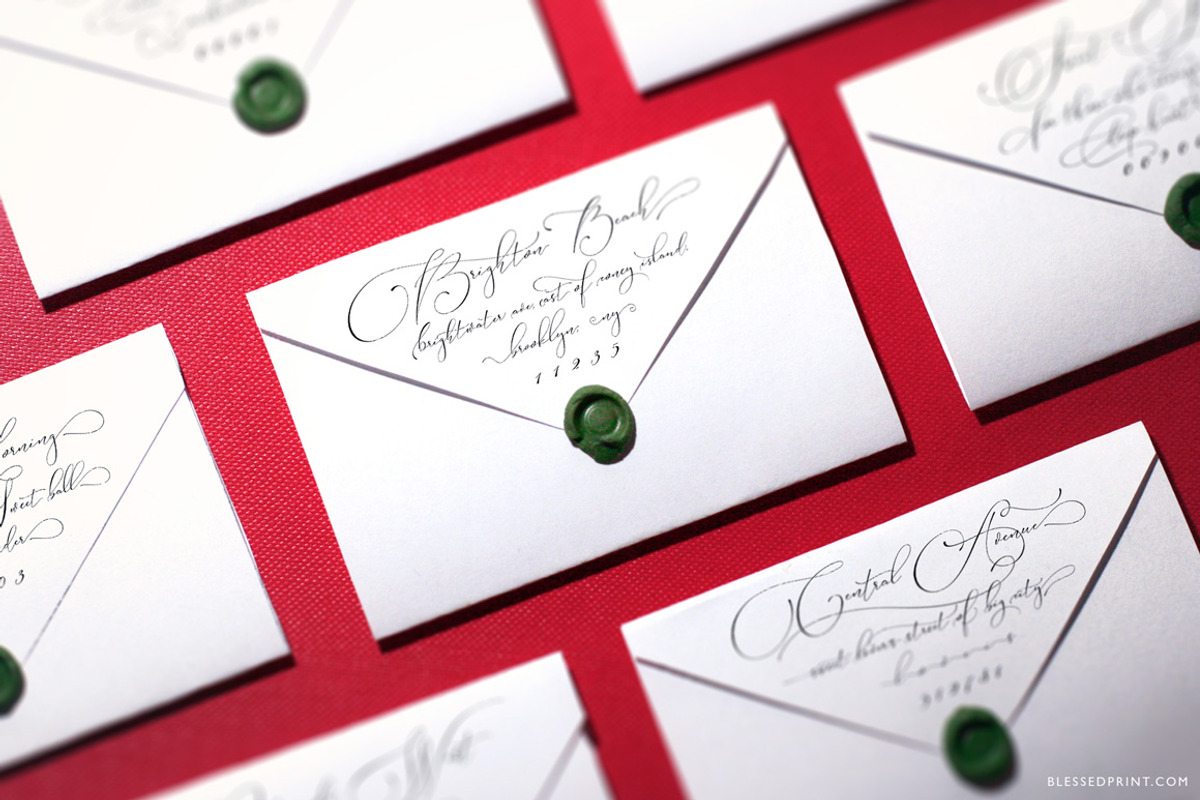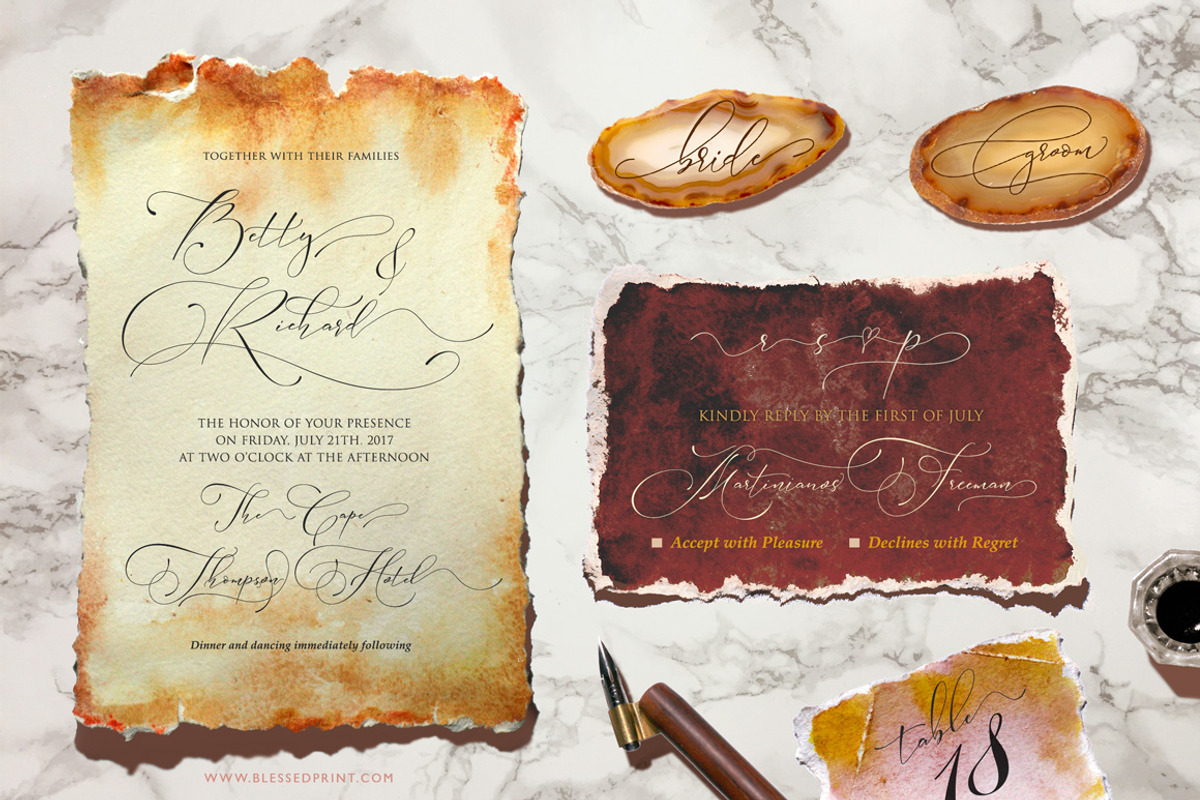
Absolutely Adorable Sophia
Ever fancied yourself as a modern calligrapher? There you go… Greet the absolutely adorable new script “Sophia”! The latest creation from BlessedPrint, the author of “Mozart” and “BetterFly".
Now you have a unique opportunity to master modern calligraphy with just a single font. Forget about the Glyphs panel, simply add an appropriate number after a letter and get your elegant swash in seconds.
Absolutely easy… As easy as one-two-three…
To access alternate glyphs and swashes just type the number after any letter: a1, a2, a3, etc…
If you open the Glyphs panel you will see more than 2500 glyphs. Using this font is so intuitively obvious that you will never feel its complexity. Just relax and allow the creativity happen. You don’t need to search for an appropriate alternative - just add a number after any letter you want to alternate or add a beautiful swash to and it will appear in a blink of an eye. The creative process is very fragile and therefore nothing should distract your attention. That’s why I've implemented a handy way of choosing alternatives. Have fun!
All capital letters are provided with six full sets of swashes. You have around 6 options: A, A1, A2, A3, A4, A5, A6, A7… As you can see, letter A has 8 variations. There are much more options for the lowercase: a, a1, a2 … a34. Just choose the one you like best!
Multilingual font-family with 4 weights (Normal, Medium, Bold and Extra Bold)
OPENTYPE FEATURES
Once you activate Contextual Alternates all initial lowercase letters and all final ones swap automatically. Sometimes Adobe programs activate it by default. It gives the lettering a unique appearance.
- Contextual alternates
- Discretionary ligatures
- Standard ligatures
- Vinyl cutters
- Stylistic alternatives (1500+)
SophiaScript EXT version 3 weights of Sophia Script with bolder lines. Use these options for small texts or vinyl cutters.